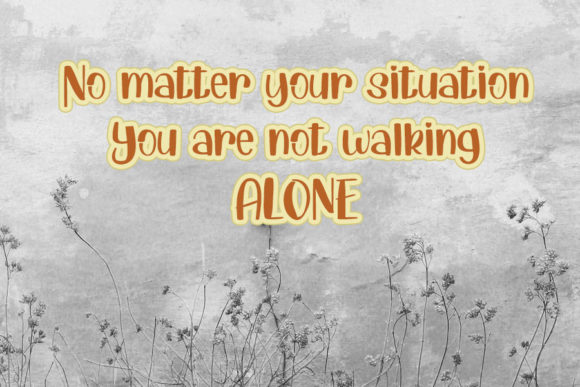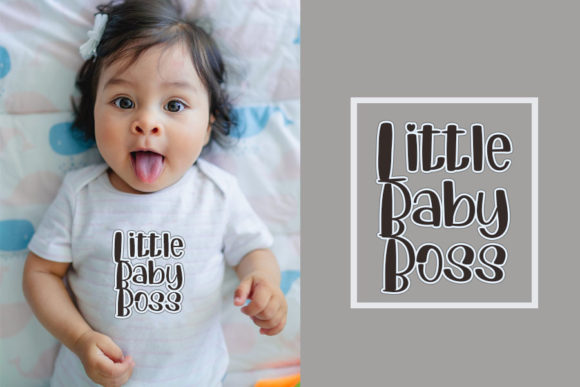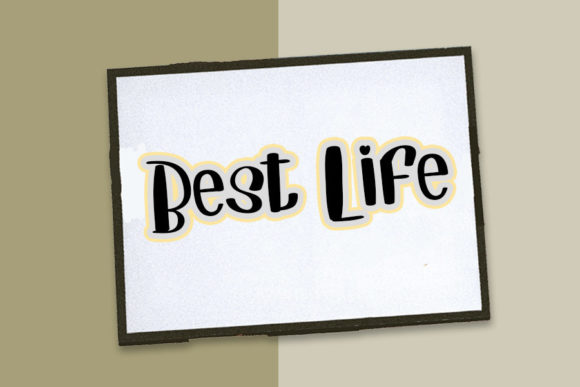
About Handsome Font
Introducing ‘Handsome,’ a delightful and charming handwritten font that exudes cuteness and friendliness. With its playful and slightly quirky nature, this font is an ideal choice for a wide range of creative projects. Whether you’re designing a captivating logo, establishing a unique brand identity, crafting eye-catching posters, or embarking on exciting DIY endeavors, ‘Handsome’ is the perfect fit.
With its handwritten style, ‘Handsome’ adds a personal and approachable touch to your designs. The fluid strokes and gentle curves give this font a warm and inviting vibe. Its inherent playfulness allows it to stand out, catching the viewer’s attention and leaving a lasting impression.
Utilize ‘Handsome’ to infuse your projects with a sense of joy, creativity, and handmade charm. From whimsical brand logos to captivating event invitations, this versatile font brings a unique character that sets your creations apart from the rest.
Crafters and DIY enthusiasts will also find ‘Handsome’ to be a valuable asset. Whether you’re creating handmade cards, personalized gifts, or artistic home decor, this font enhances the crafty and heartfelt nature of your projects.
So, why settle for ordinary when you can add a touch of ‘Handsome’ to your designs? Unlock the potential of this delightful handwritten font and elevate your creative endeavors to new heights. Let ‘Handsome’ be your creative companion as you explore the endless possibilities of design and self-expression.